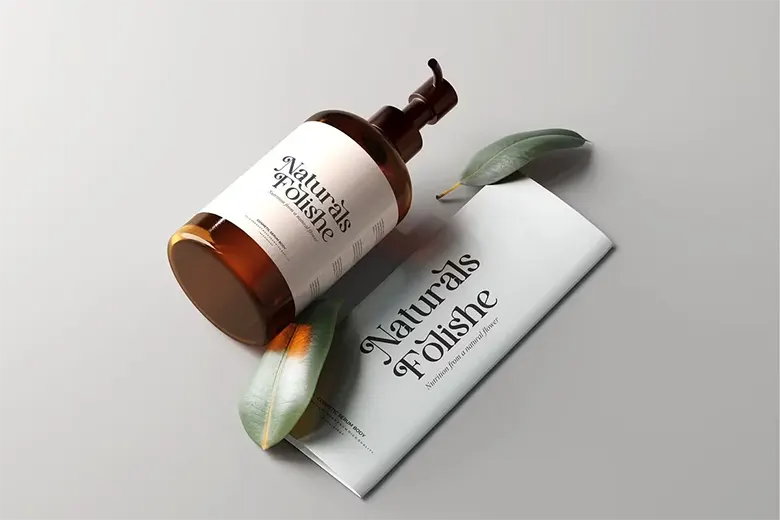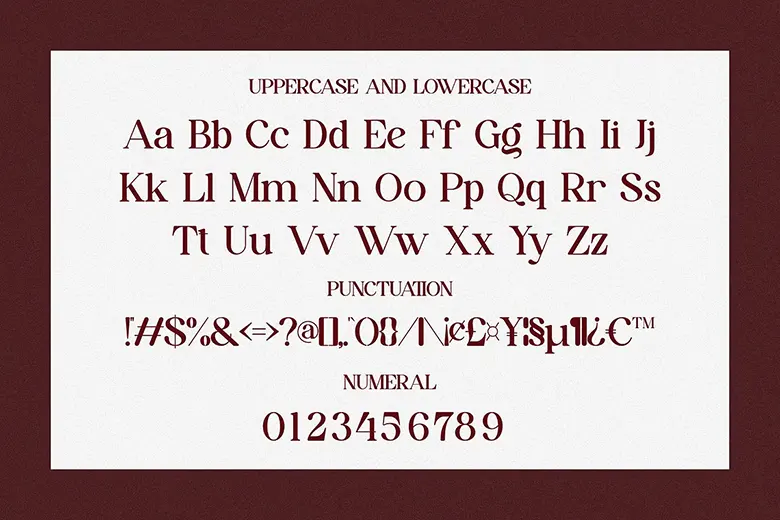
Avilla Mirabel is a vintage serif font that adds a touch of class to any design. Its smooth, elegant style works great for logos, branding, and creative projects. You can use it for invitations, business cards, movie titles, book covers, or brand names. Stylish ligatures and unique details give it a polished, professional look.
This font blends classic and modern vibes, making it versatile for both personal and professional use. It’s easy to read and perfect for designs that need a timeless, sophisticated feel. Whether you’re a designer or just creating something special, Avilla Mirabel helps your work stand out.
Avilla Mirabel Vintage Font